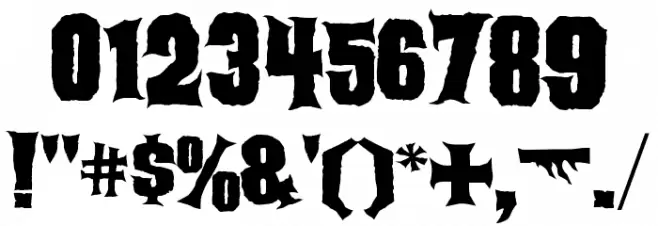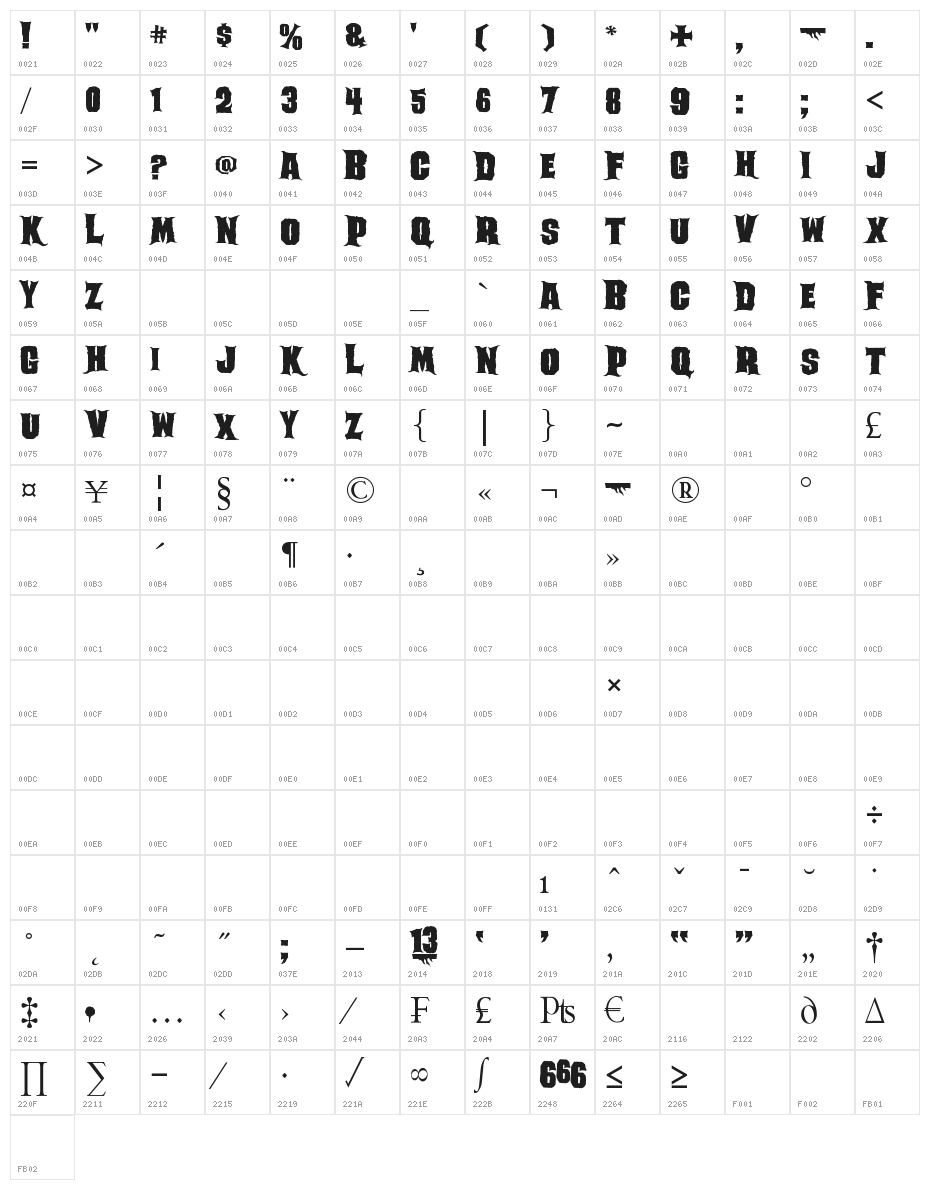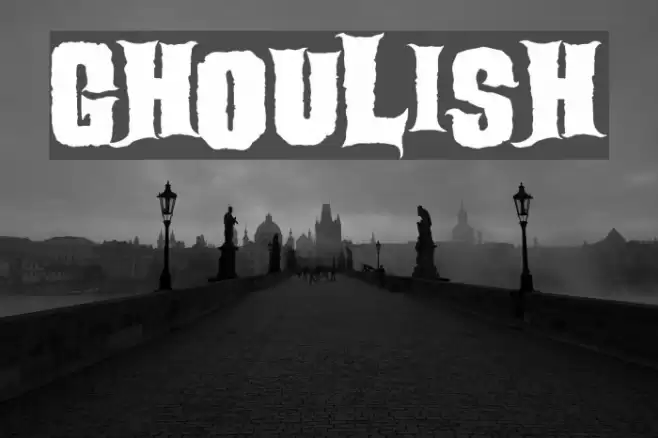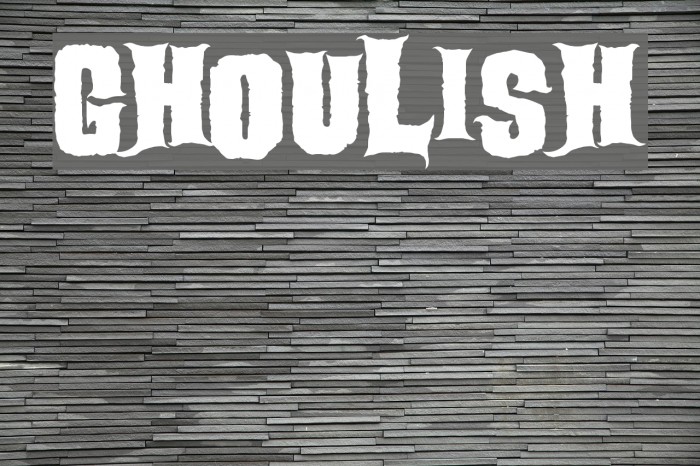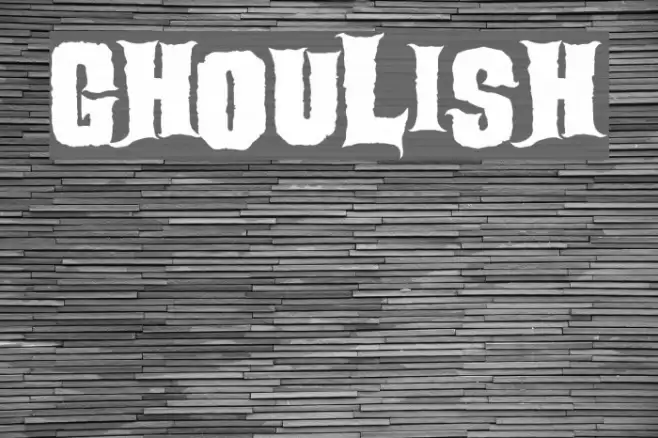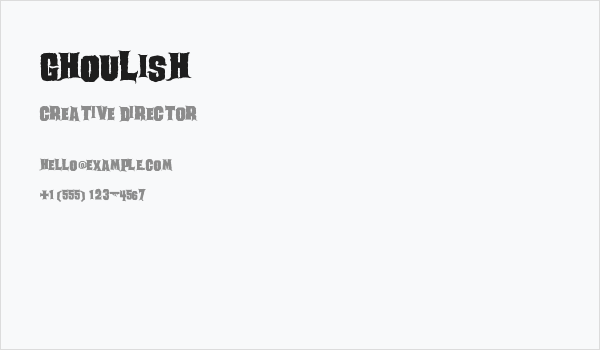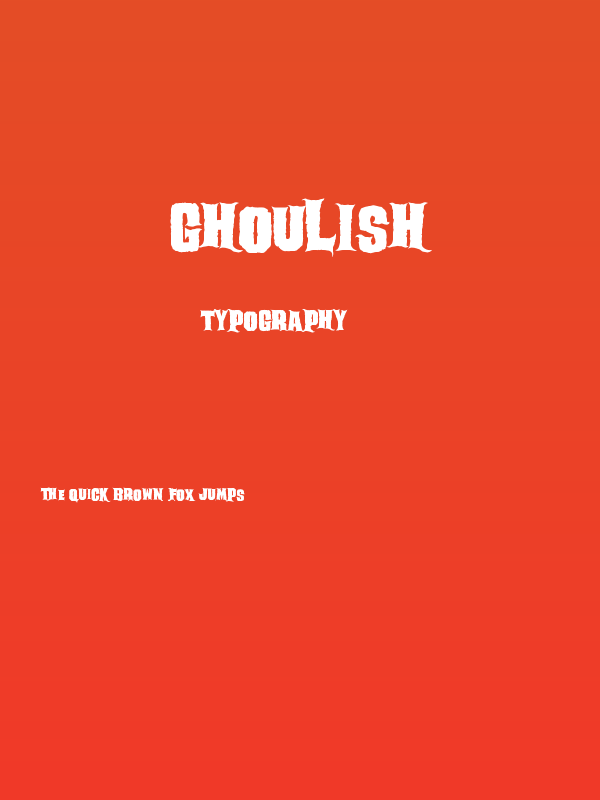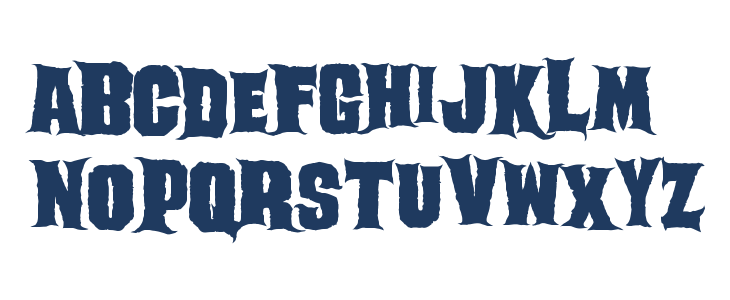
Ghoulish Font
Ghoulish Description
This font features a bold and jagged design, reminiscent of horror or Halloween themes. The characters have an irregular, distressed appearance, with sharp edges and uneven strokes that create a spooky, eerie vibe. The uppercase and lowercase letters maintain a consistent style, with exaggerated serifs and a rough texture that adds to the unsettling aesthetic. Numbers and special characters follow the same design principles, ensuring a cohesive look across all glyphs. The font's unique style makes it ideal for projects that require a dramatic and eye-catching typeface.
GHOULISH UPPERCASE
GHOULISH LOWERCASE
GHOULISH OTHER CHARS